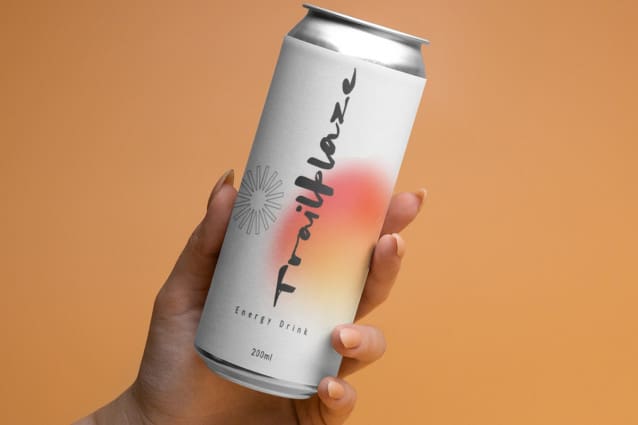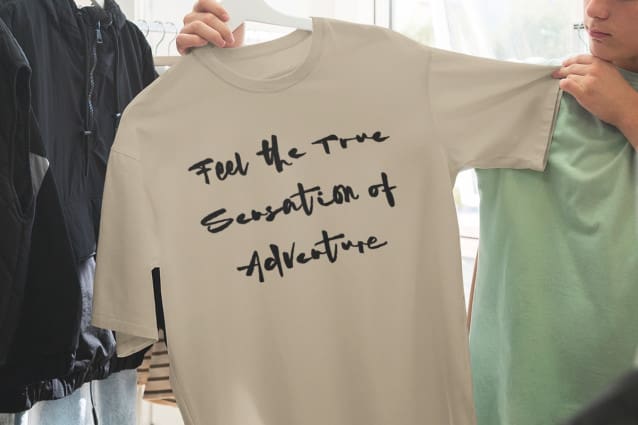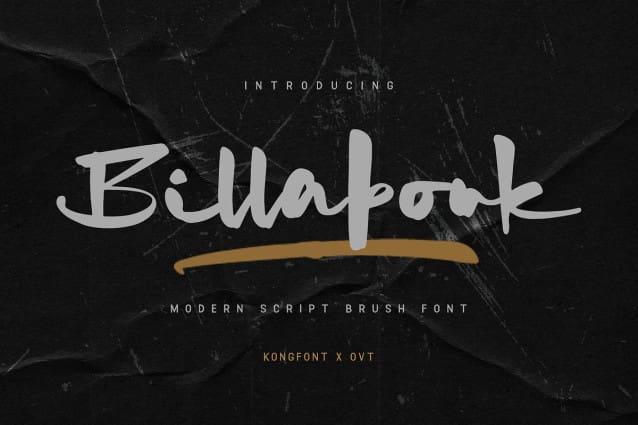
Billabonk Script Font
Billabonk Script Font a modern script brush font designed to ignite your creativity. With its fluid strokes and contemporary flair, Billabonk brings a fresh, dynamic energy to your designs.
Crafted for designers who seek to make a statement, this font exudes confidence and style in every curve and loop. Whether you’re crafting logos, branding materials, or social media graphics, Billabonk adds a touch of boldness and sophistication to your projects.
With a versatile character set that includes alternates, ligatures, and swashes, Billabonk Script offers endless possibilities for customization. Whether you’re aiming for a casual, handwritten look or a more refined aesthetic, this font provides the perfect balance of flexibility and elegance.
Elevate your designs with Billabonk and let your creativity flow freely with every stroke.